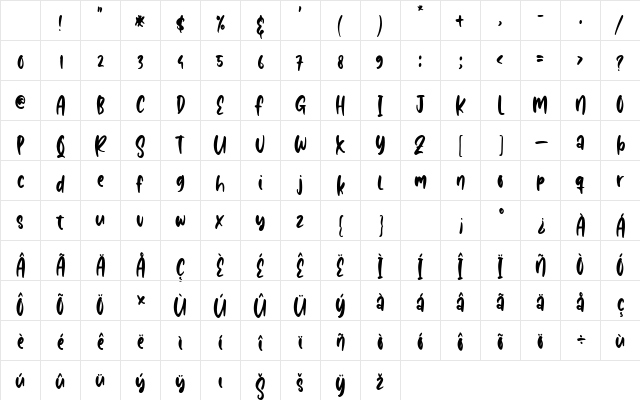
Complete Snoopii Losee Regular glyph index. Displaying only characters natively supported by Snoopii Losee Regular font.
Snoopii Losee is a composed and adaptable typeface that performs quietly and consistently across a wide range of design contexts.